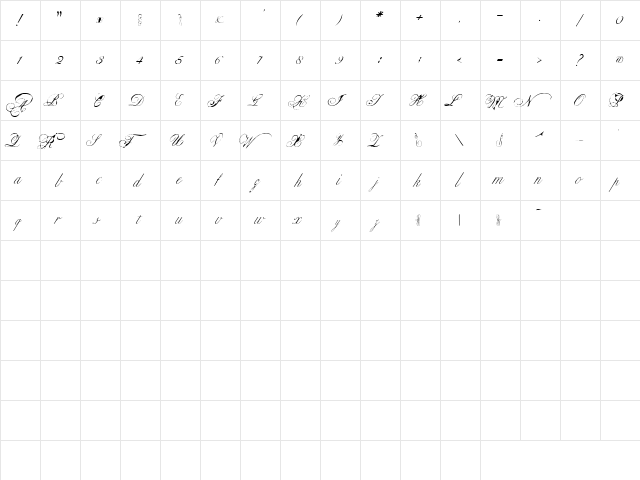
dds script01 Regular
Design Context for dds script01 Typeface
dds script01 flows with the natural rhythm of handwritten lettering, making it ideal for designs that call for warmth and personal expression.
Font Pairing: Combine dds script01 with a simple geometric sans for maximum contrast — the tension between flowing curves and clean structure is a classic typographic pairing.
Pro Tip: Use dds script01 for short runs of text — names, titles, or taglines. Extended body copy in script faces tires the eye quickly.